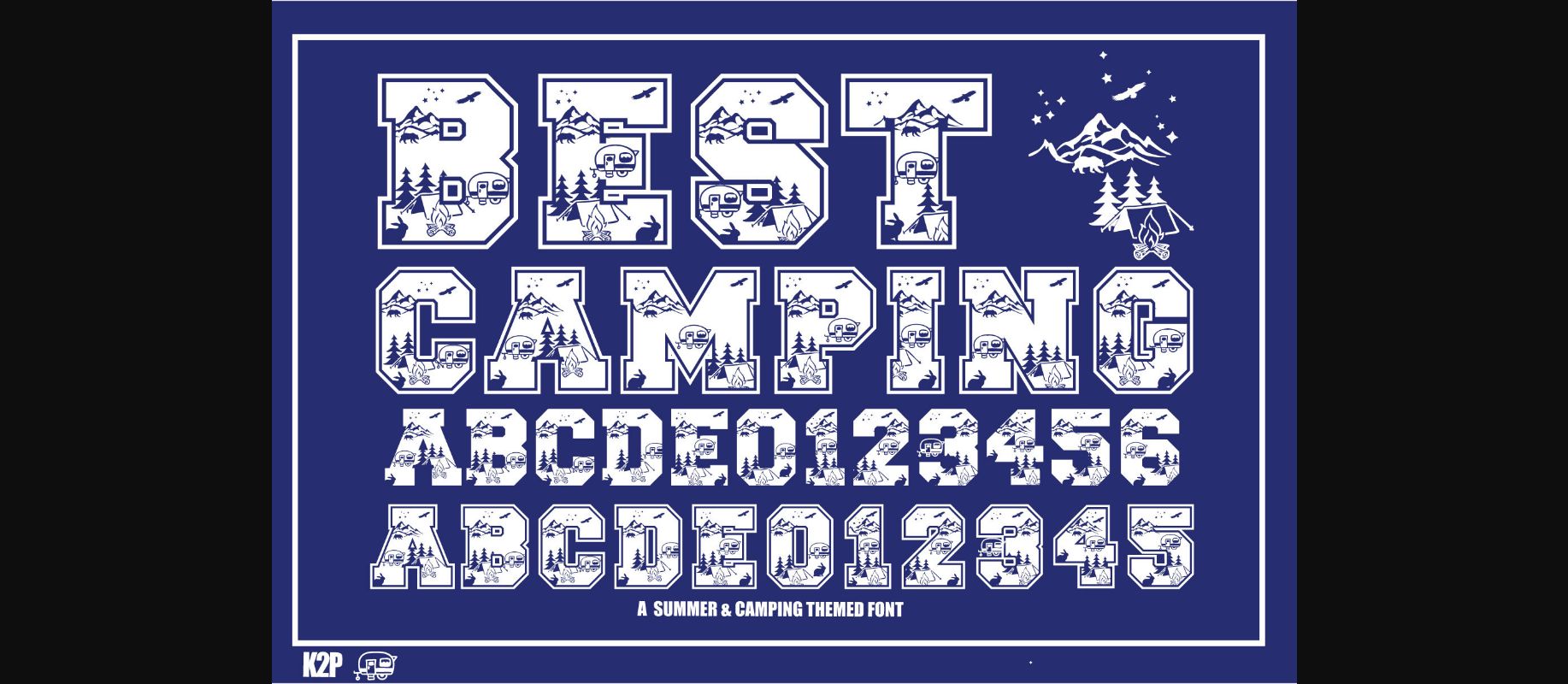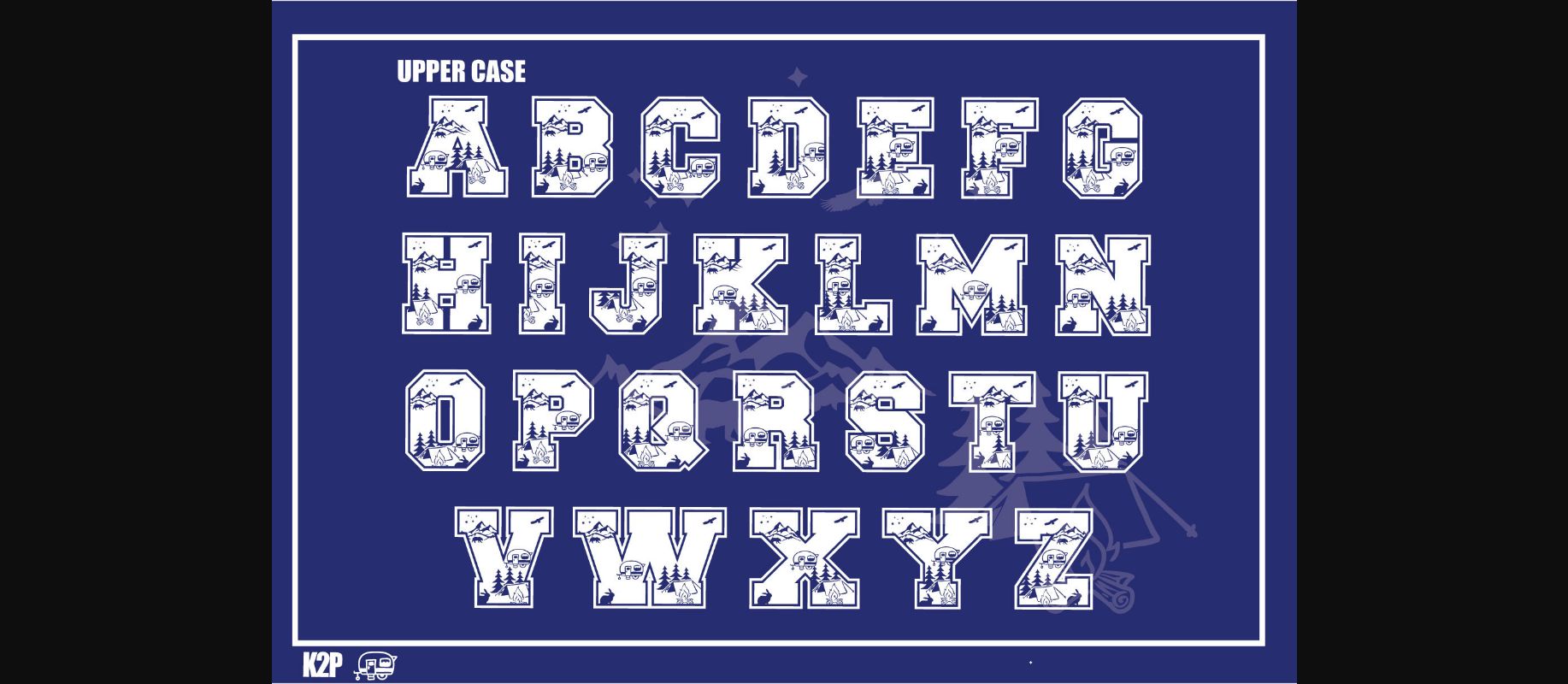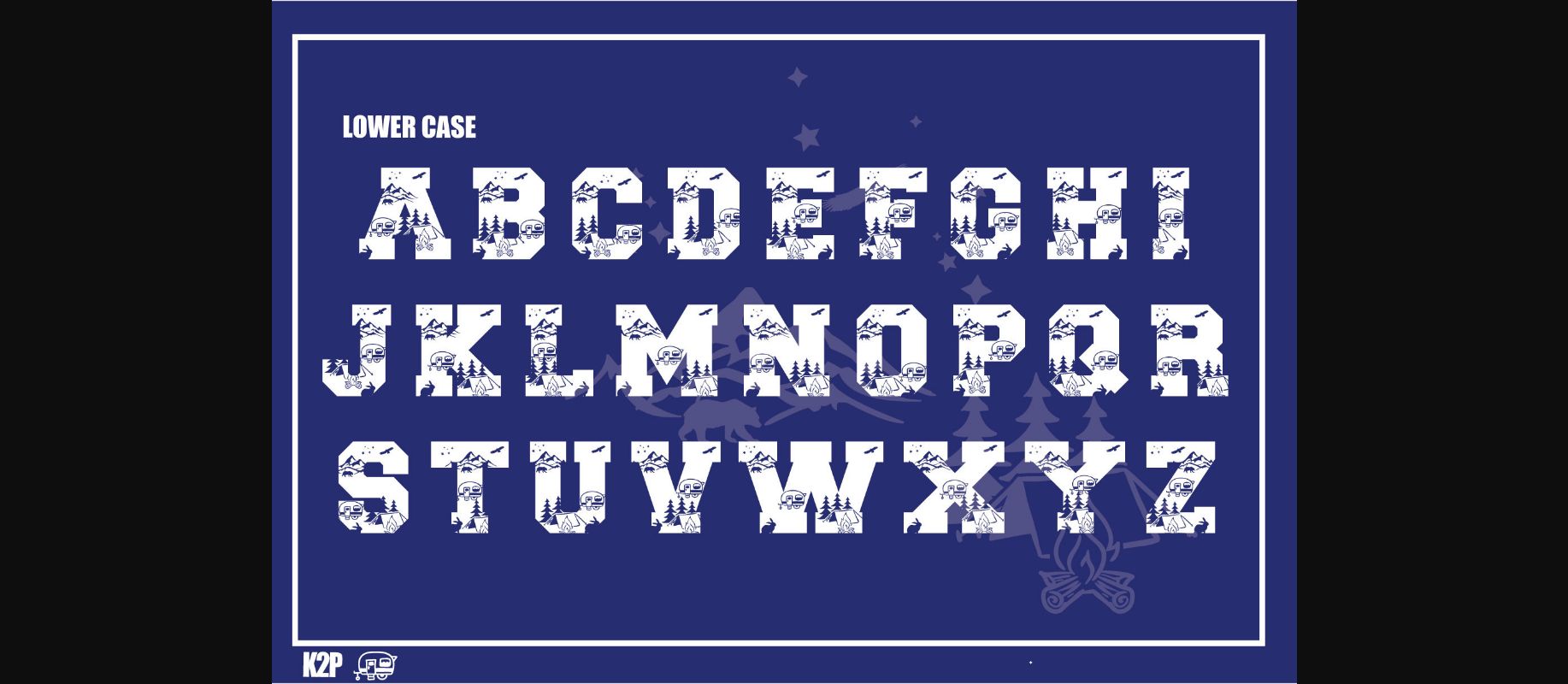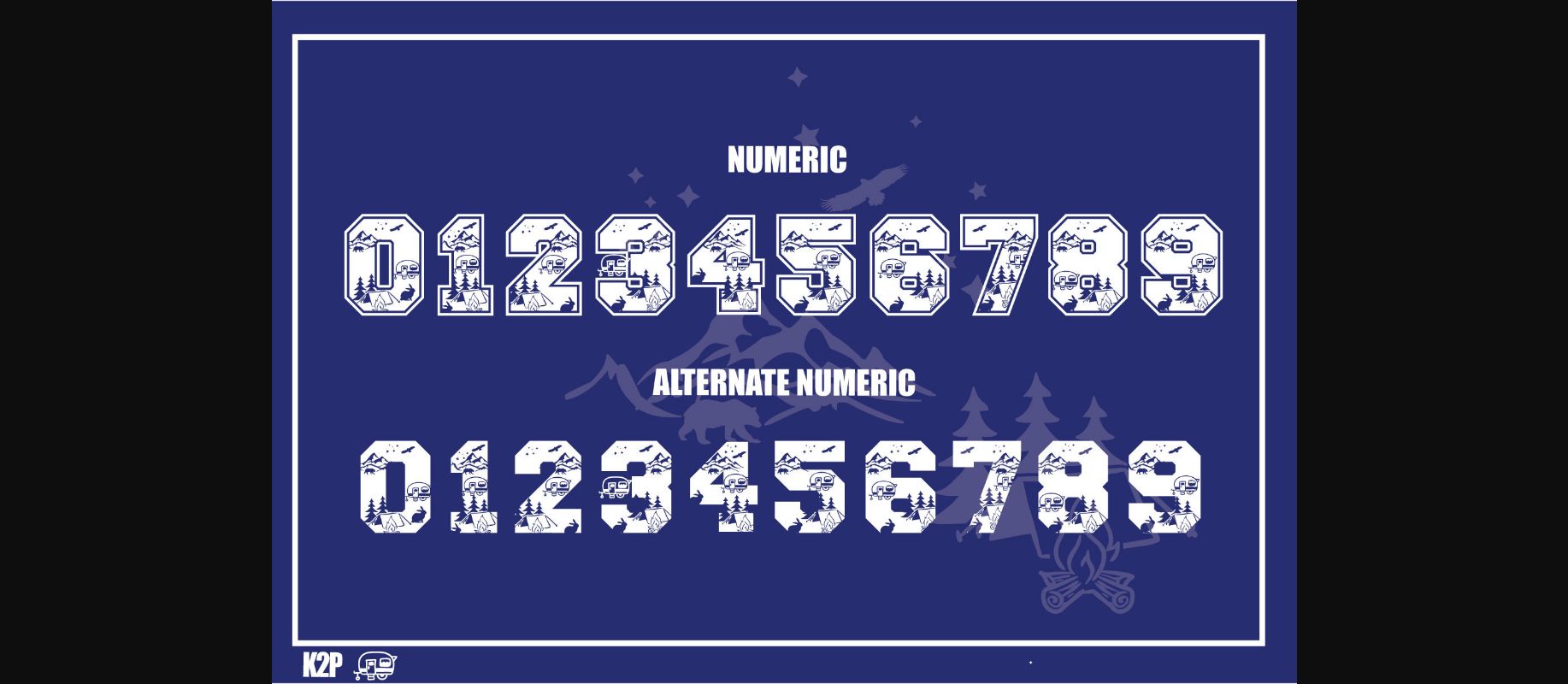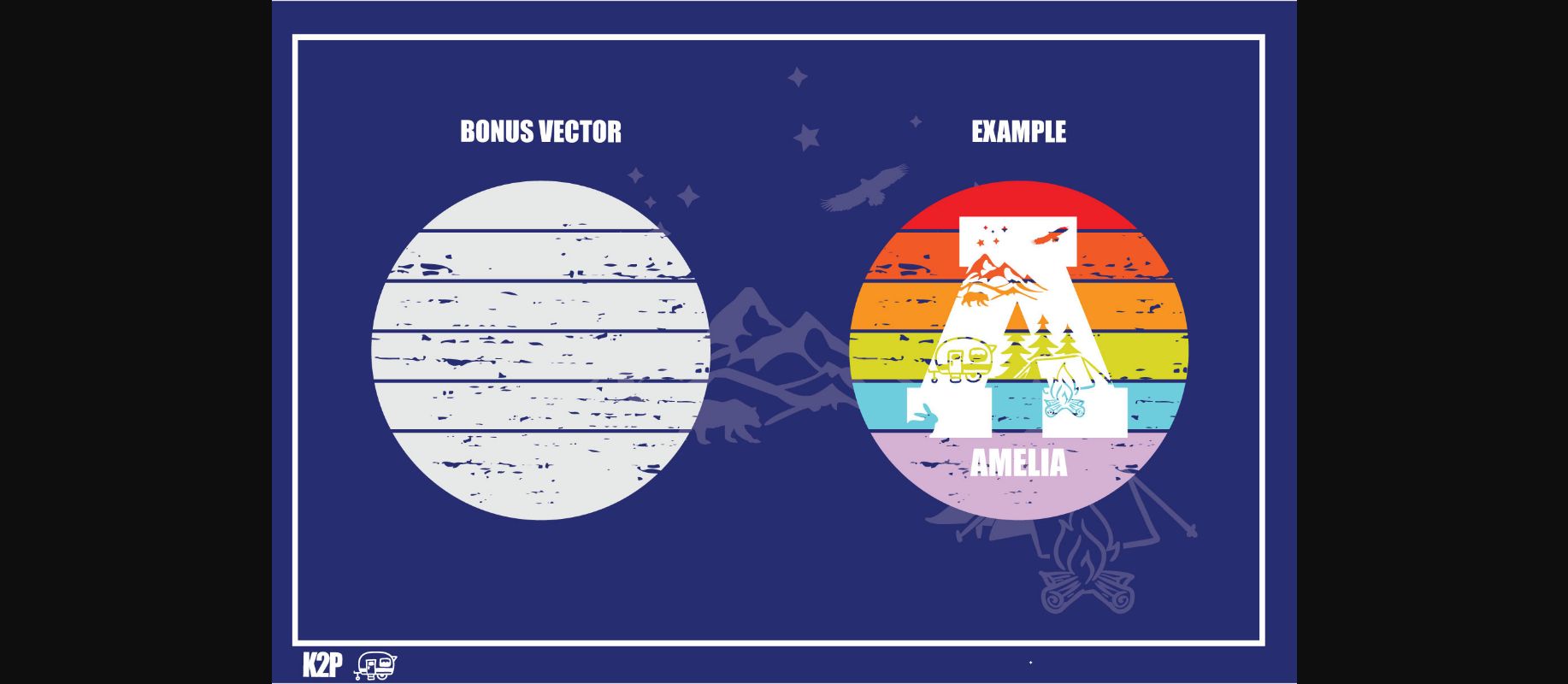
About Best Camping Font
Best Camping is a bold and assertive decorative font. It is perfect for various design ideas related to fishing, camping, traveling, and more. Have fun with this beautiful font, and explore its endless variations!